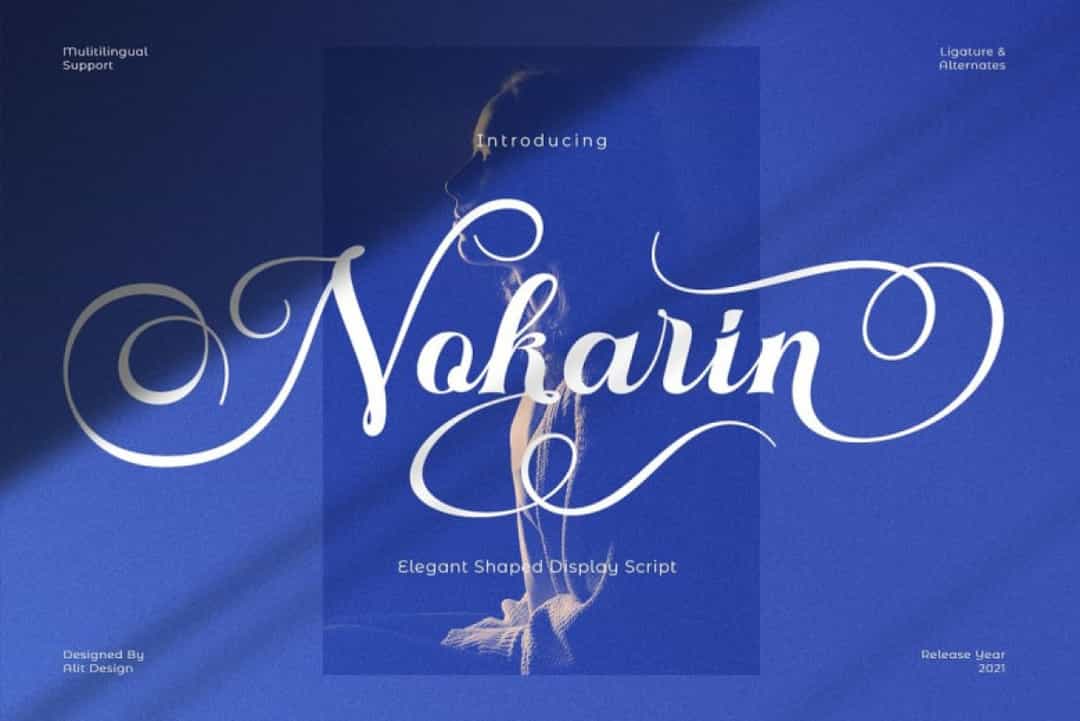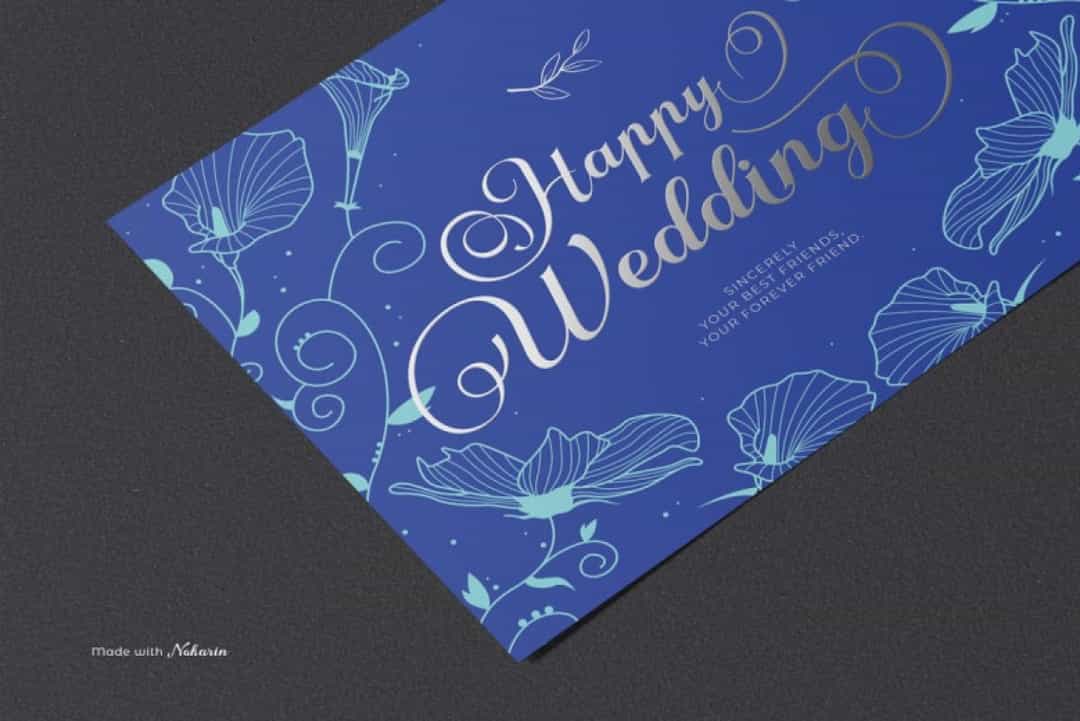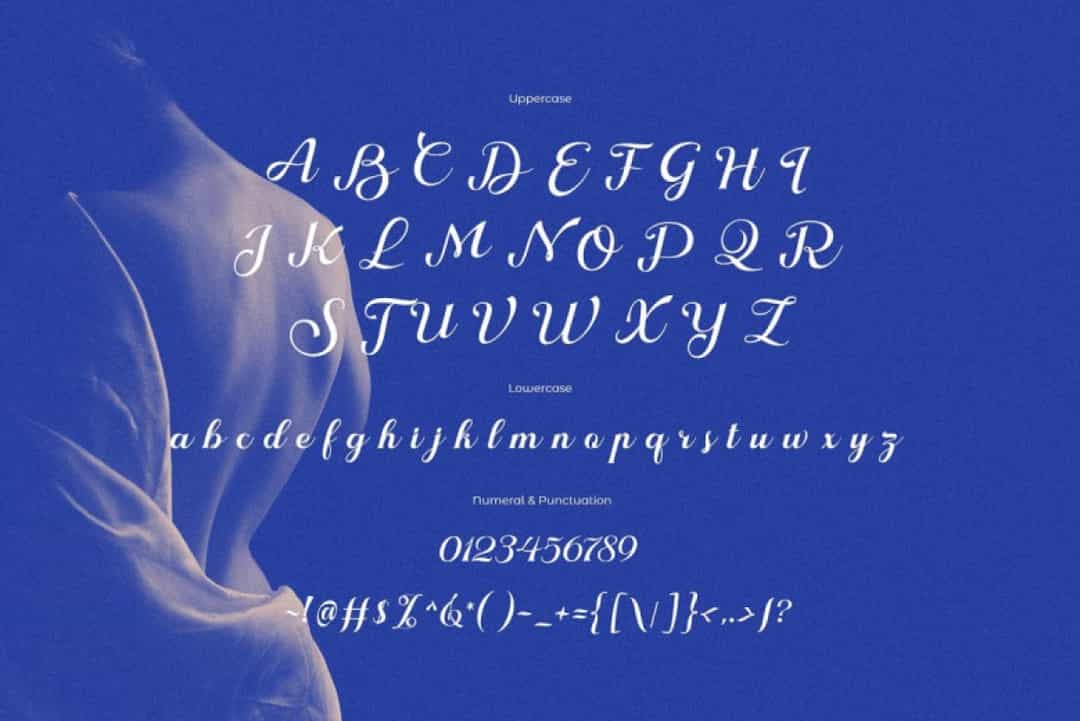
Discover Nokarin Font, part of the Calligraphy Display Valentine collection—a versatile and unique font perfect for adding a personal touch to your projects. Download it for free and enjoy crafting designs with style, from invitations to social media posts. This font is available exclusively for personal use, giving you the freedom to create without limits. Unlock your creativity with Nokarin Font today!
Nokarin Font is inspired by sophisticated script and calligraphy, and designed with care to work harmoniously – ideal for wedding favors books book covers greeting cards logos branding certificates business cards or any design that demands elegant formal or extravagant styles.